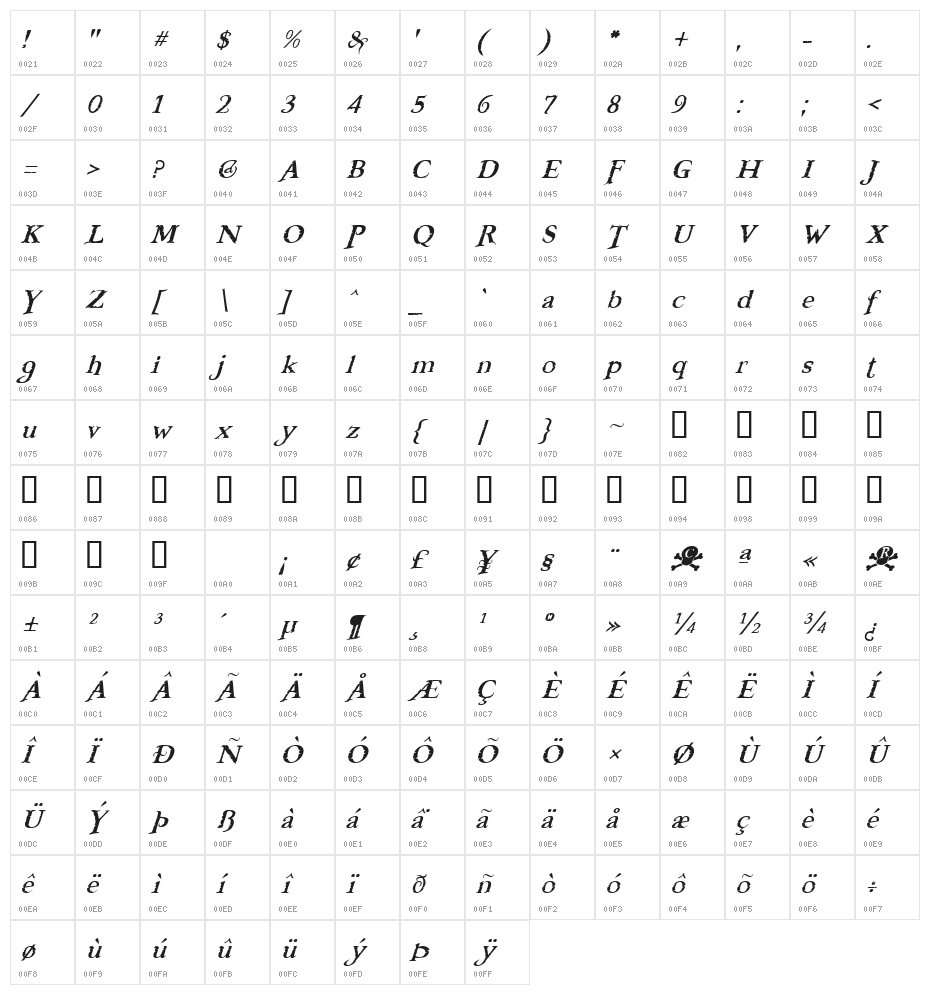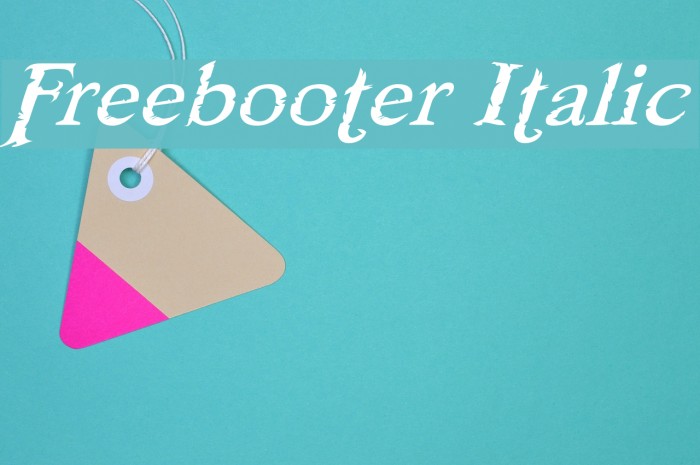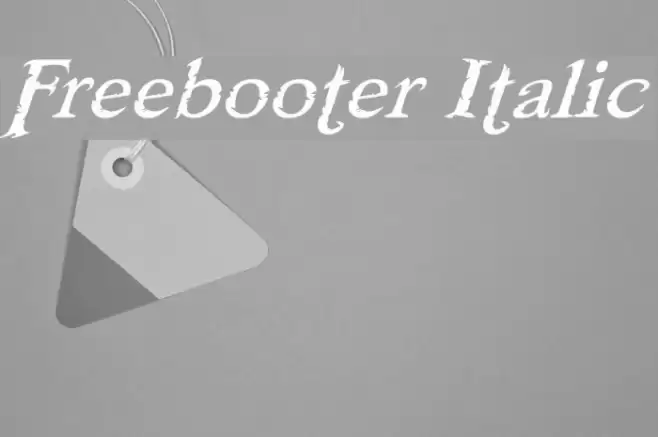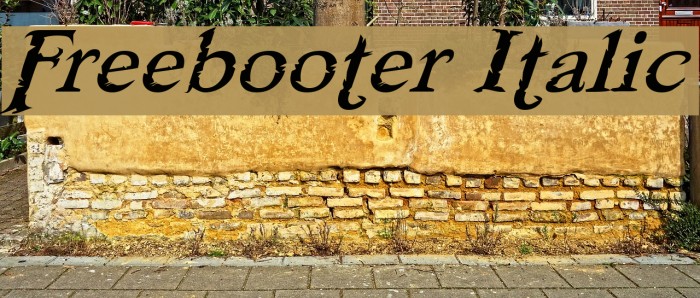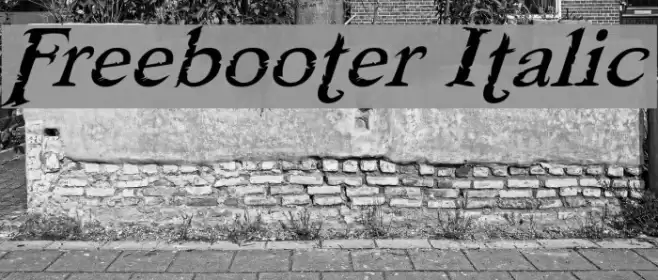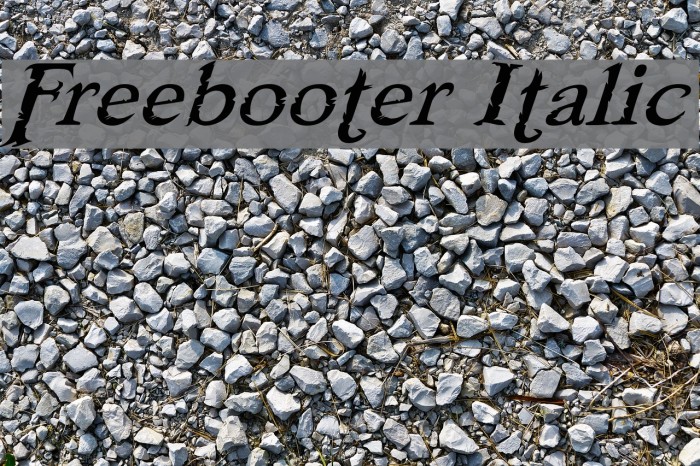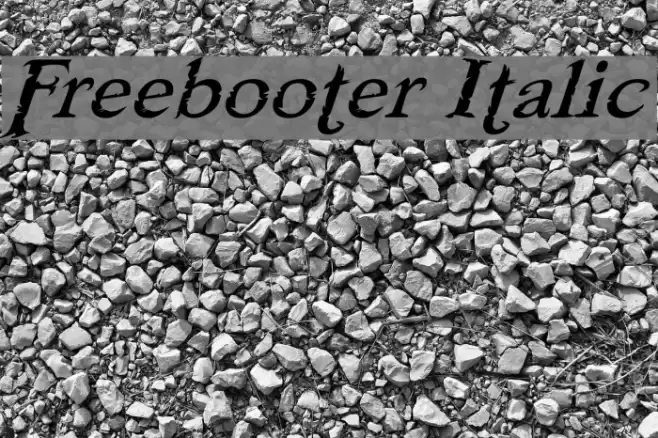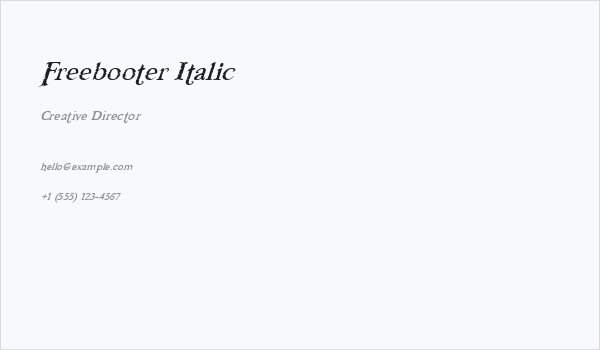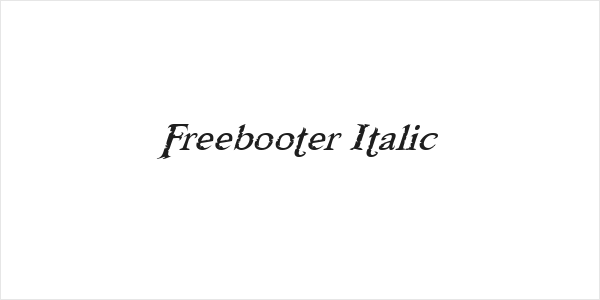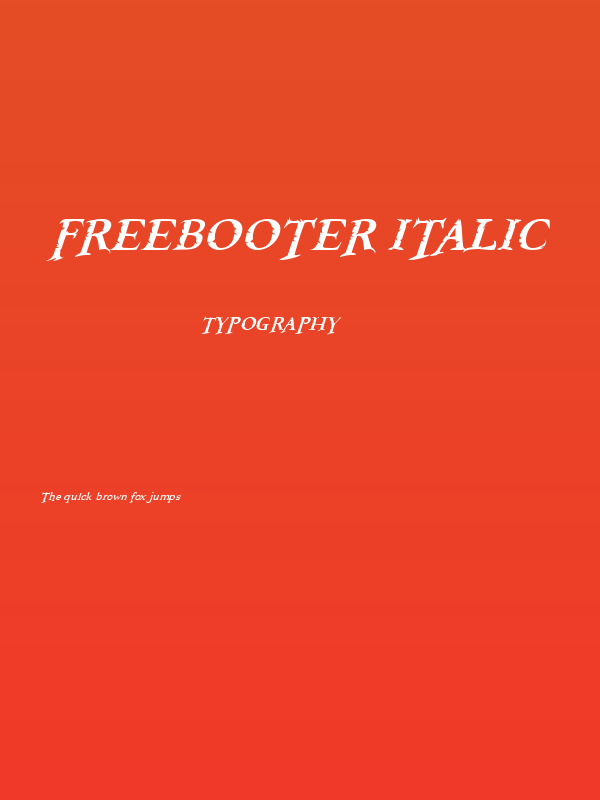
Freebooter Italic Font
Freebooter Italic Description
This font exhibits a dynamic and flowing style, characterized by its italicized and decorative appearance. The letters have a distinct slant, giving them a sense of movement and elegance. The strokes are varied, with some parts being thicker and others tapering off, creating a moderate contrast that adds to its visual interest. The serifs are sharp and pronounced, enhancing the font's classic yet artistic feel. Overall, it combines traditional serif elements with a modern twist, making it suitable for creative and expressive design projects.
| Proposed Projects | Ideal for invitations, greeting cards, branding, and artistic projects requiring a touch of elegance and flair. |